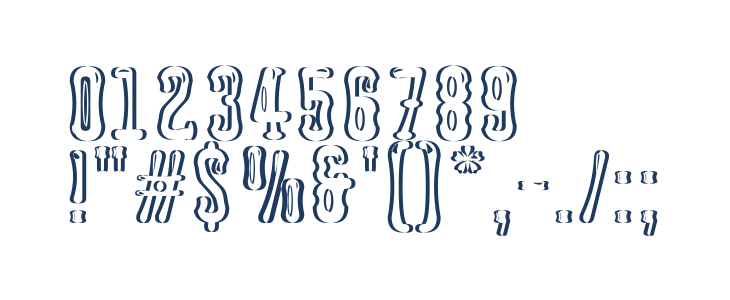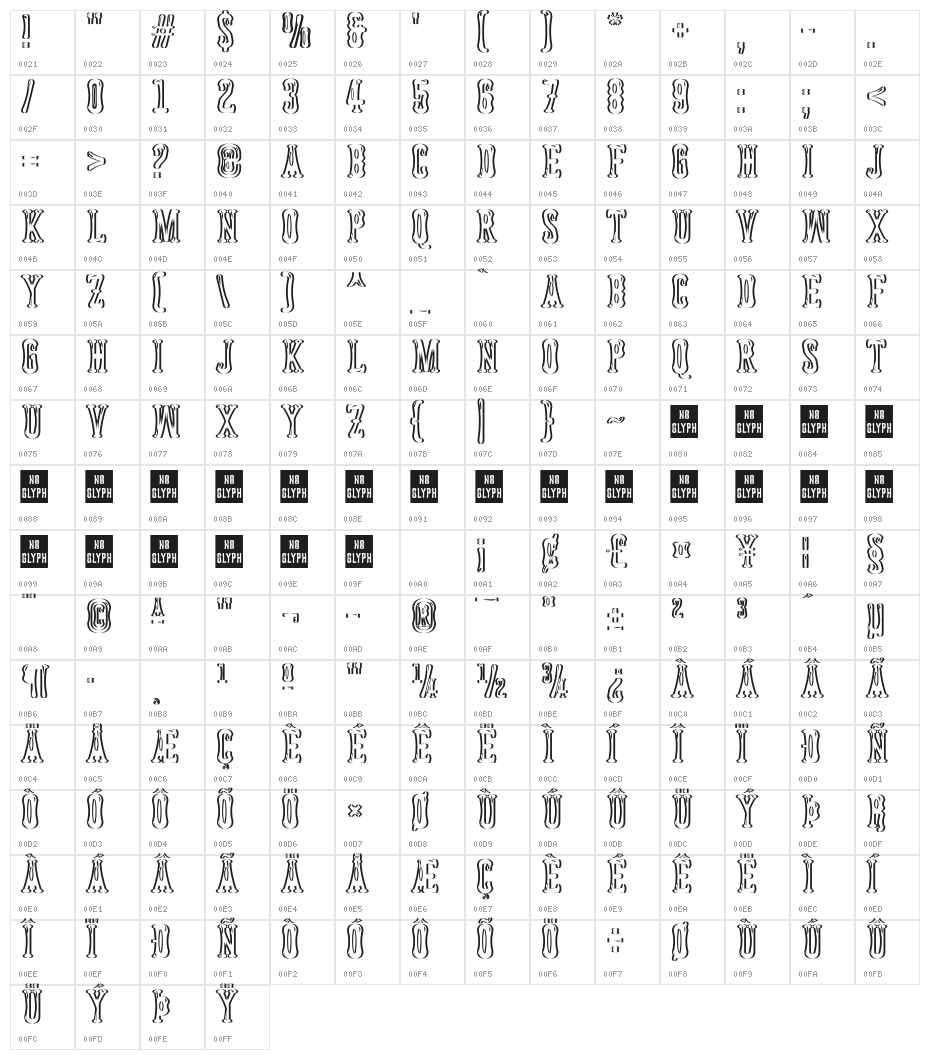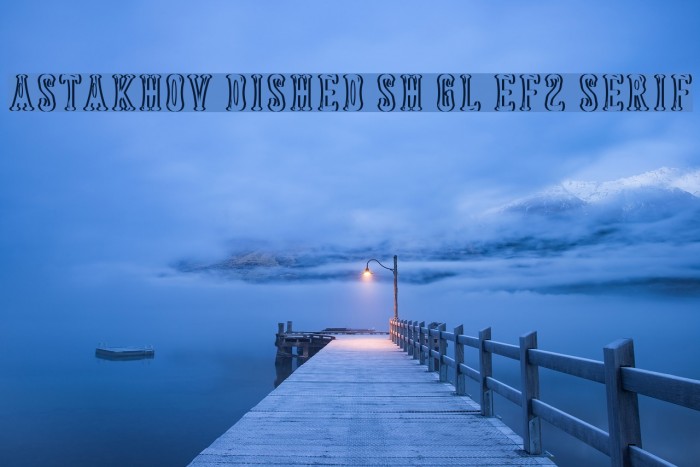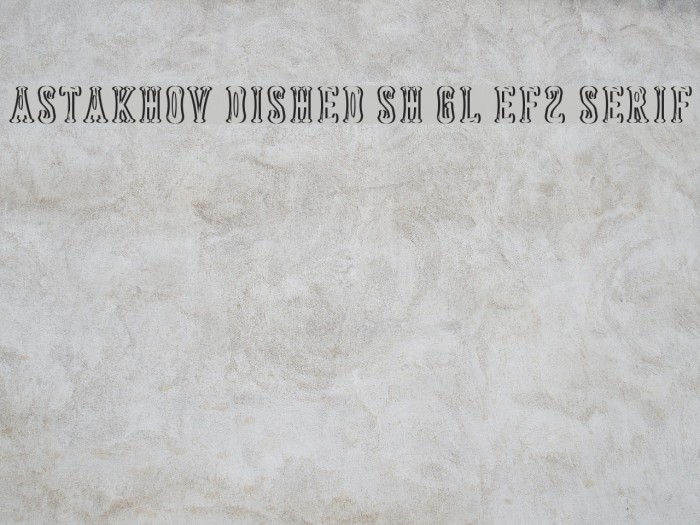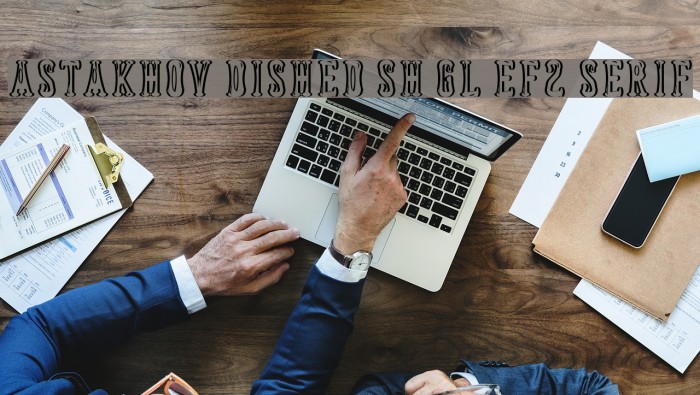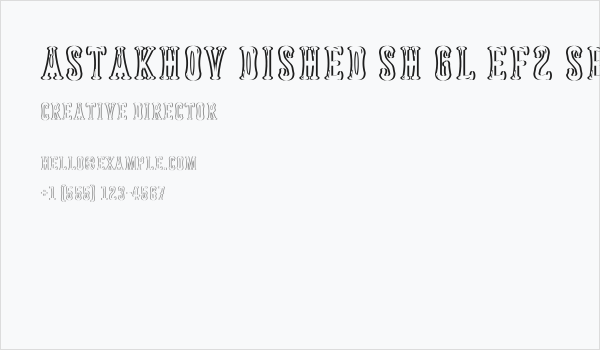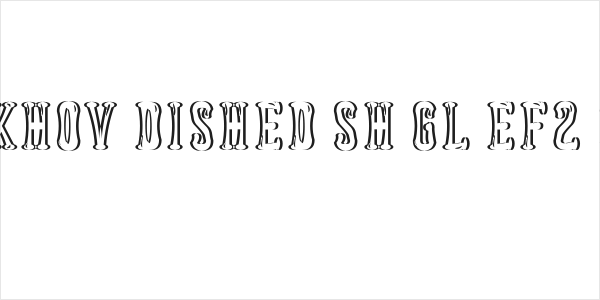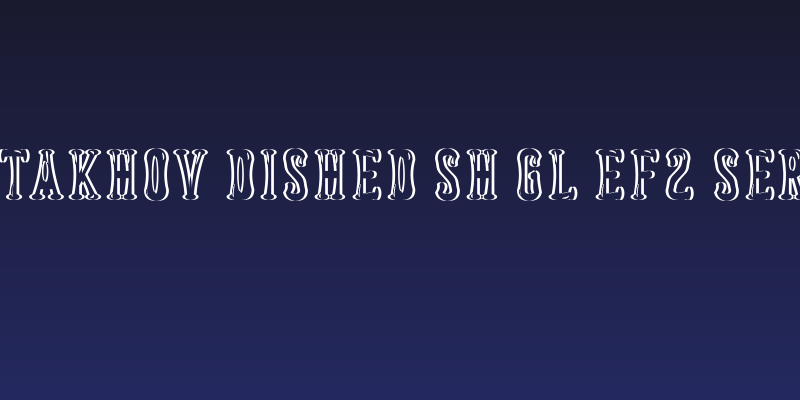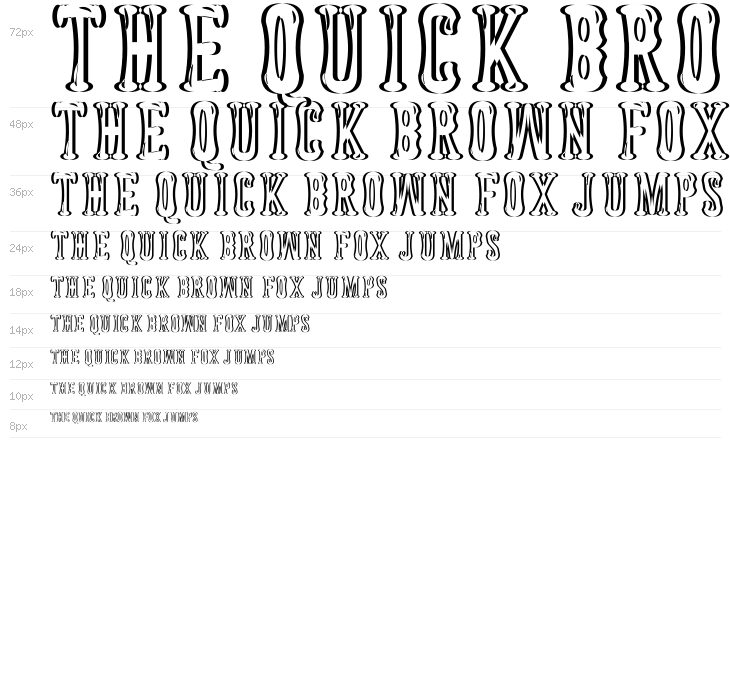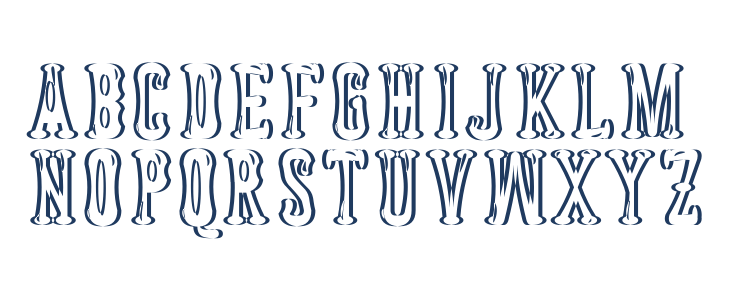
Astakhov Dished Sh Gl EF2 Serif Font
Astakhov Dished Sh Gl EF2 Serif Description
This font features a bold and decorative style with a distinct three-dimensional effect. The characters are outlined with a shadow-like design, giving them a unique and eye-catching appearance. The uppercase letters are particularly striking, with a strong presence that makes them ideal for attention-grabbing headlines. The numbers and special characters maintain the same bold and decorative style, ensuring consistency across all elements. The font's intricate design suggests a vintage or retro influence, making it suitable for projects that require a touch of nostalgia or artistic flair.